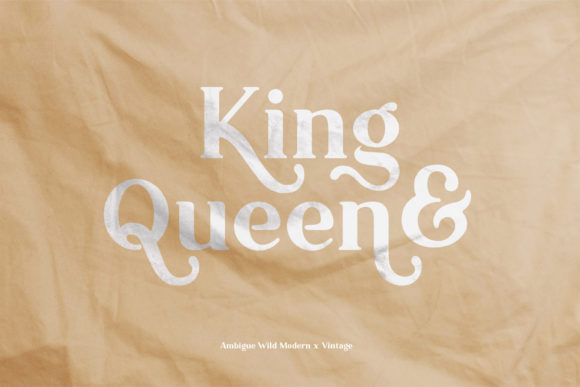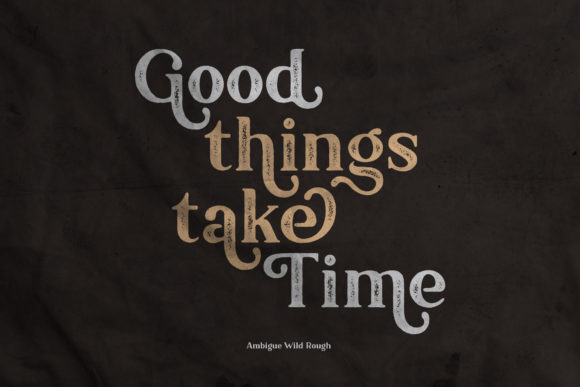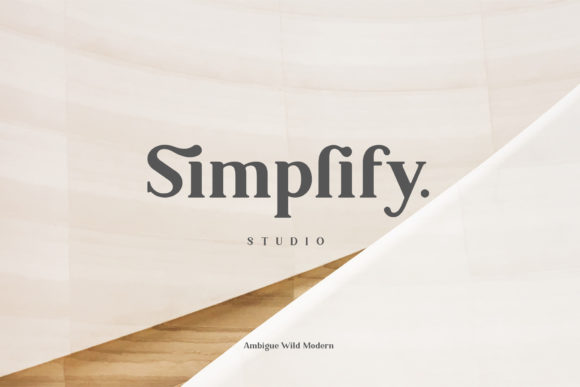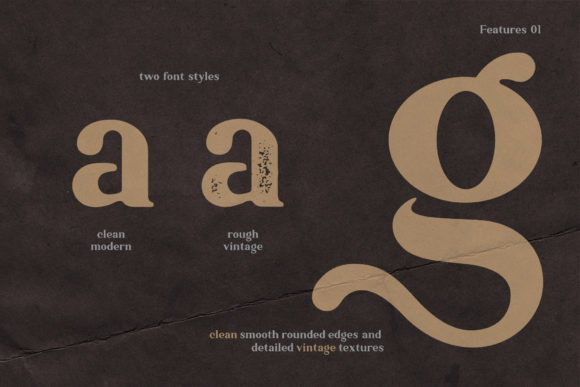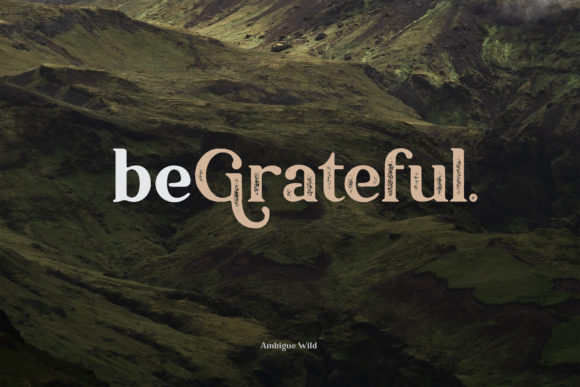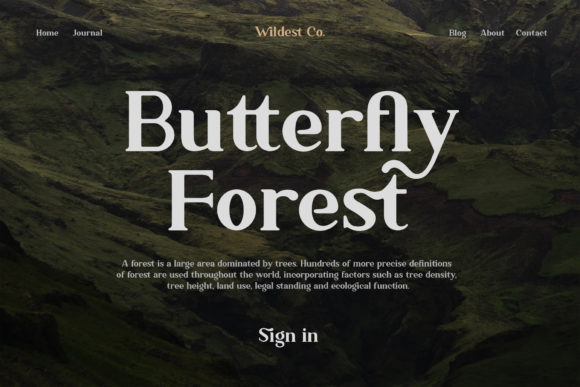
Introducing Ambigue Wild Font: Elevate Your Designs with a Unique Serif Style
In the world of typography, fonts play a crucial role in conveying the message and aesthetic of a design. For designers and crafters looking for a distinctive and modern serif font, Ambigue Wild is an excellent choice. This clean and contemporary font features smooth rounded edges and a rough, inked style that adds a touch of sophistication to any project.
What Makes Ambigue Wild Font Stand Out?
Ambigue Wild is not just another serif font; it’s a versatile typeface designed to bring a unique character to your designs. Its smooth rounded edges give it a friendly and approachable feel, while the rough and inked style adds a layer of ruggedness and authenticity. This combination makes Ambigue Wild perfect for a wide range of applications, from logos and branding to product packaging and magazine covers.
Key Features of Ambigue Wild Font
- Clean and Modern Design: Ambigue Wild boasts a clean and modern serif design that will elevate your projects with its fresh and contemporary look.
- Smooth Rounded Edges: The font’s smooth rounded edges give it a soft and friendly appearance, making it ideal for designs that require a touch of warmth and approachability.
- Rough and Inked Style: The rough and inked texture adds a unique and creative twist to the font, giving it a distinctive look that sets it apart from other serif fonts.
- High Versatility: Ambigue Wild is incredibly versatile and can be used for a variety of projects, including logos, branding, product packaging, magazine covers, and more.
Use Cases for Ambigue Wild Font
The possibilities are endless with Ambigue Wild. Here are some use cases where this font truly shines:
- Logo Design: Create a memorable and impactful logo with Ambigue Wild’s unique serif style.
- Branding: Establish a strong brand identity with this font’s distinctive and modern look.
- Product Packaging: Add a touch of sophistication and elegance to your product packaging with Ambigue Wild.
- Magazine Covers: Grab the attention of your readers with a stunning magazine cover designed with this font.
Why Choose Ambigue Wild Font?
In a sea of fonts, Ambigue Wild stands out for its unique blend of modernity and ruggedness. Here are some reasons why you should consider choosing Ambigue Wild for your next project:
- Unique Style: Ambigue Wild offers a distinctive style that will set your designs apart from the crowd.
- Ease of Use: This font is incredibly easy to use and works well in a variety of design contexts.
- High-Quality Design: Ambigue Wild is designed with high-quality and precision, ensuring that your designs look professional and polished.
Ambigue Wild Font is an exceptional choice for designers and crafters looking for a modern serif font with a unique twist. Its clean design, smooth rounded edges, and rough and inked style make it perfect for a wide range of projects. Whether you’re creating a logo, branding materials, product packaging, or magazine covers, Ambigue Wild is sure to elevate your designs and make them stand out. With its high versatility and ease of use, this font is a valuable addition to any designer’s toolkit.